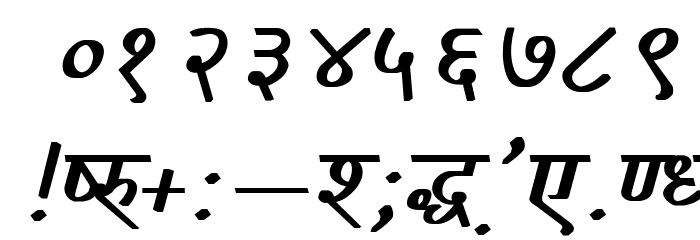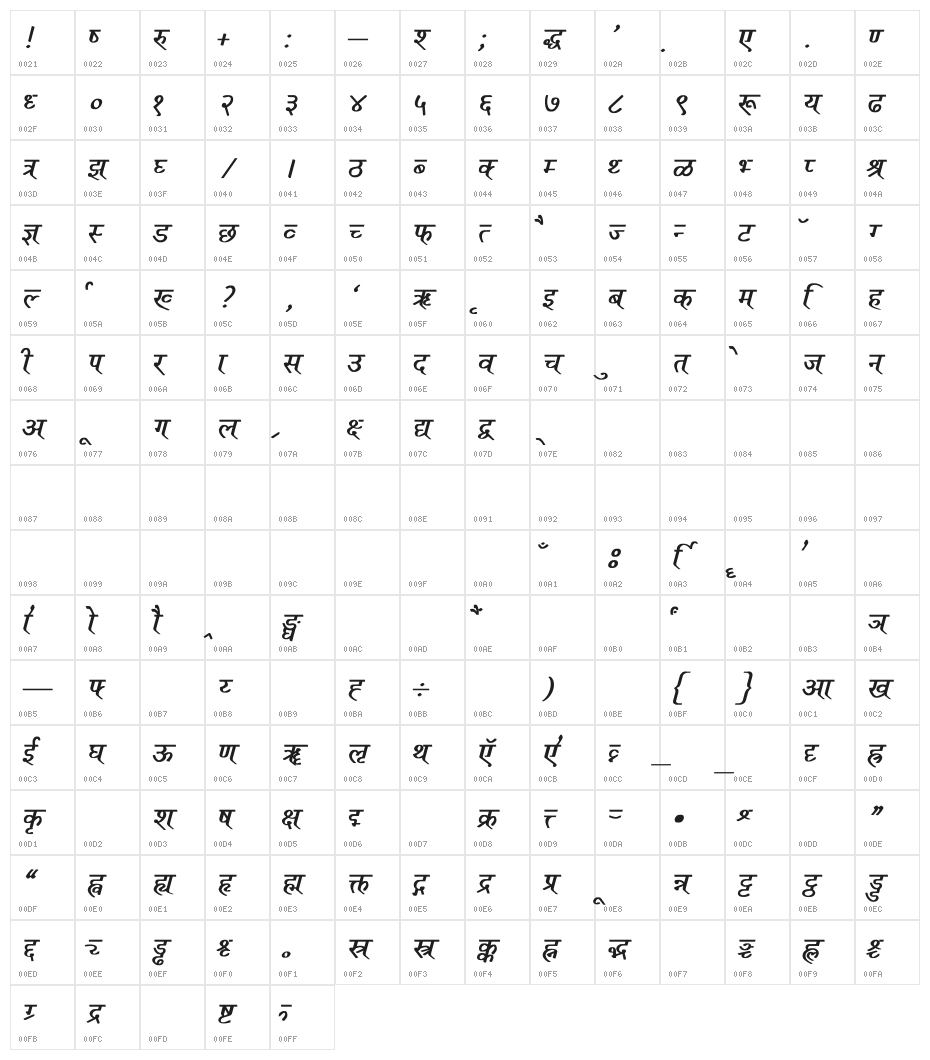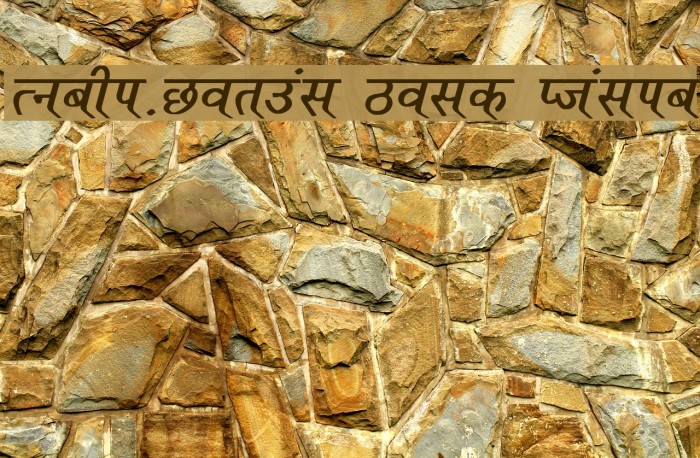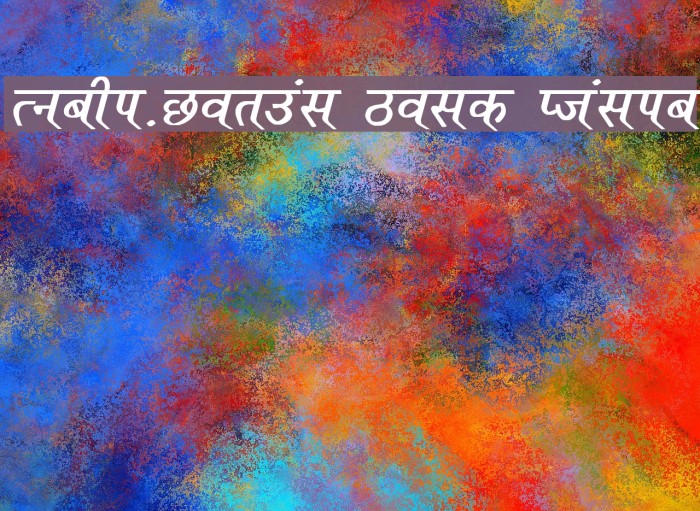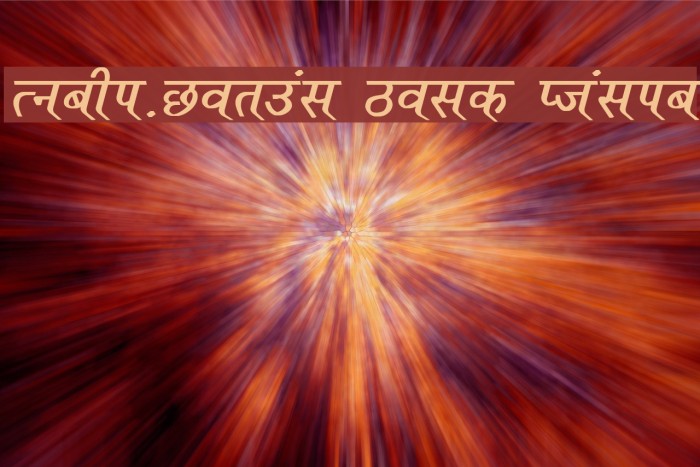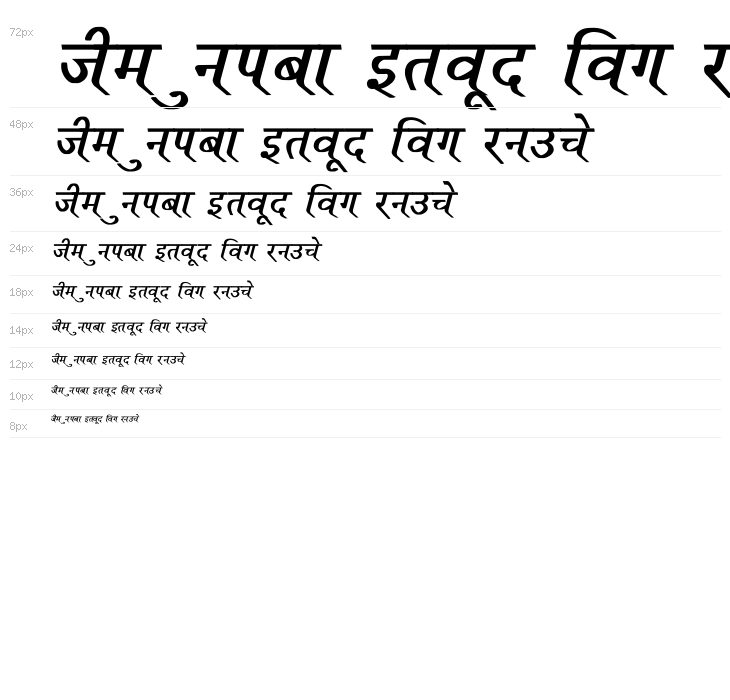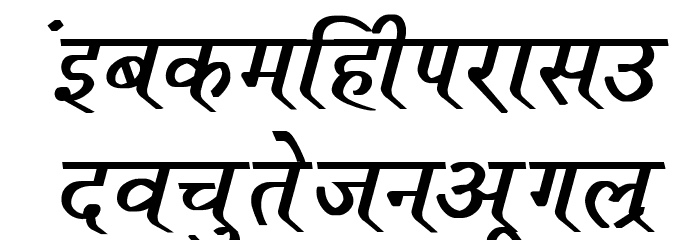
Ruchi-Normal Bold Italic Font
Ruchi-Normal Bold Italic Description
This font features a bold and italicized style with a distinct flair, characterized by its dynamic and flowing script. The characters are elegantly curved, with a consistent stroke width that enhances readability while maintaining a decorative appeal. The font's design is rooted in traditional calligraphy, offering a modern twist with its bold emphasis and italic slant. It is well-suited for use in artistic and cultural contexts, providing a sense of sophistication and elegance. The numerals and special characters are harmoniously integrated, ensuring a cohesive look across all text elements.
| Use Case | Headlines, Artistic projects, Cultural materials |
| Proposed Projects | Ideal for cultural posters, artistic invitations, and elegant branding materials. |